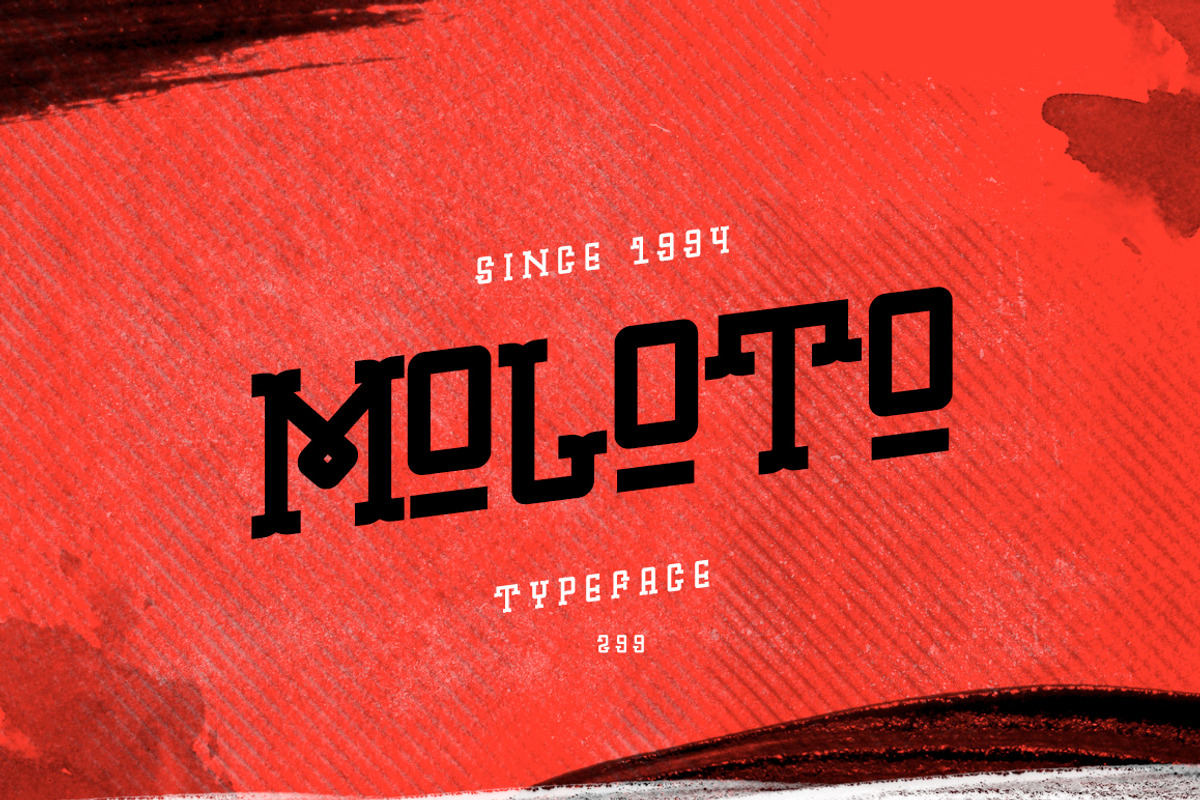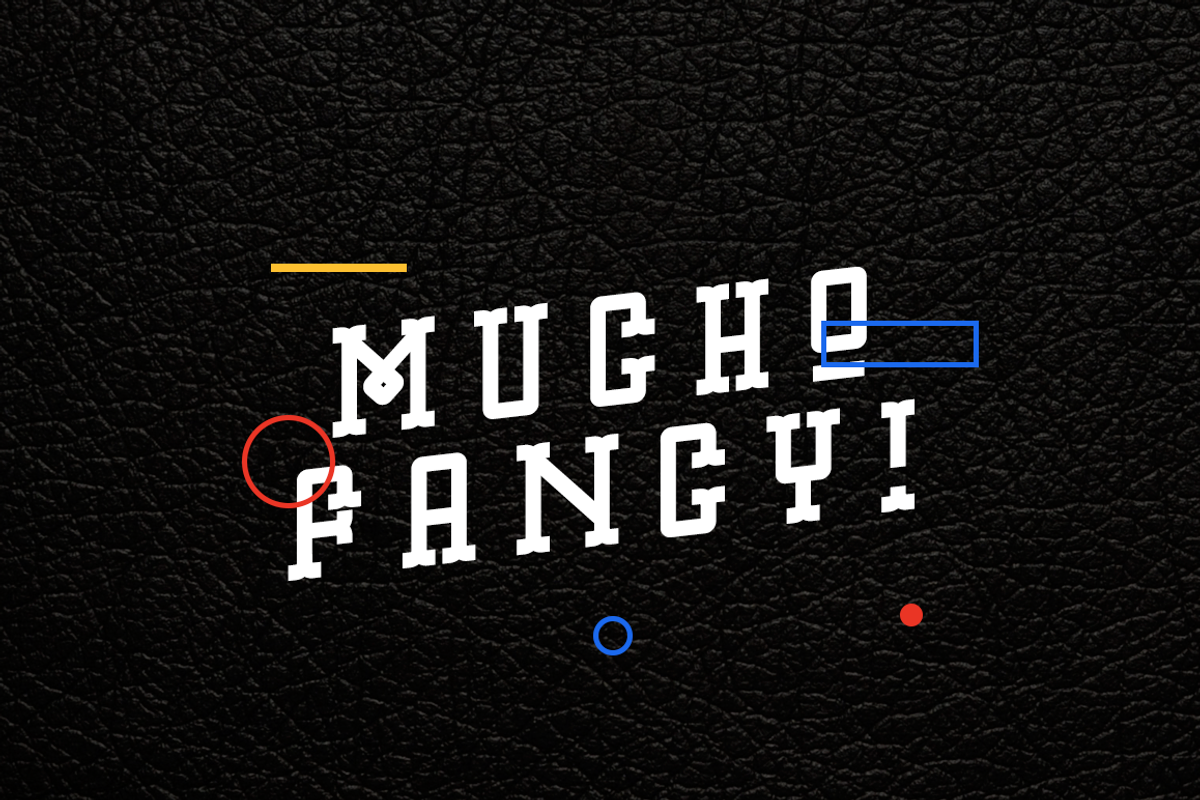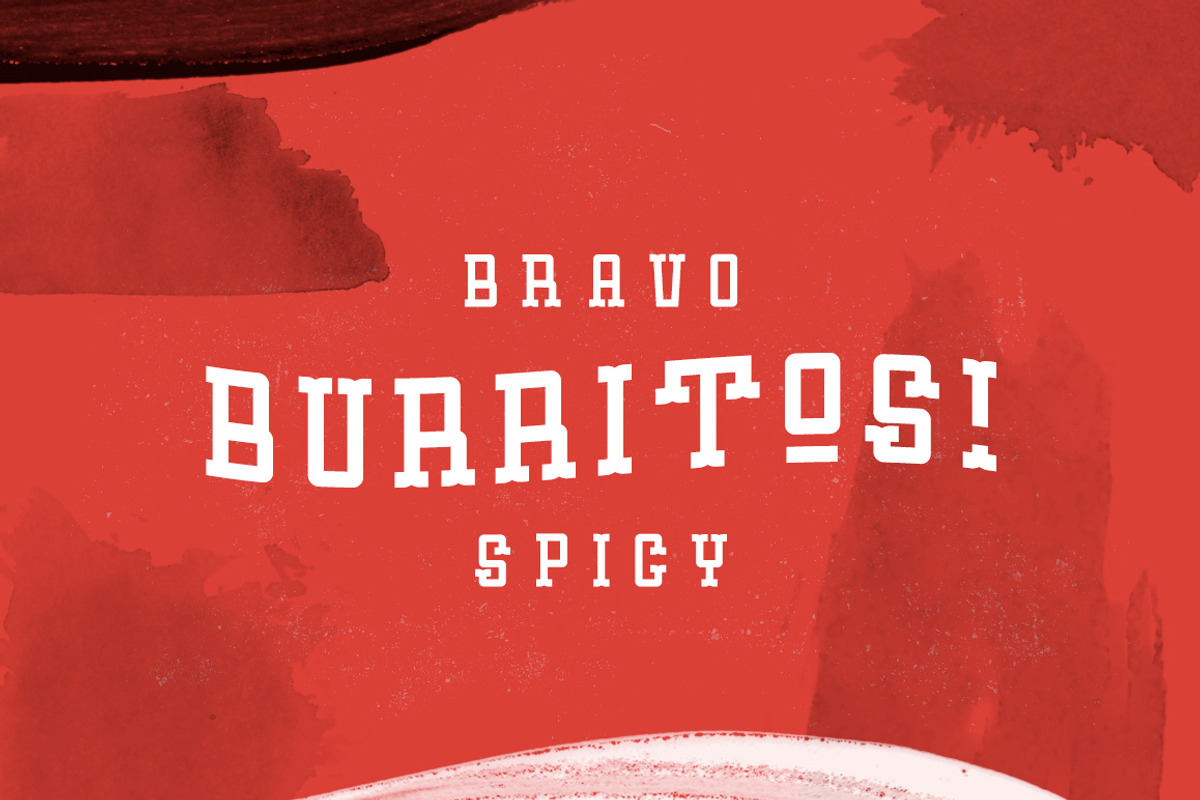
Moloto Font
Introducing Moloto Font, a typeface inspired in the mexican culture.
Thys typeface ins perfect for restaurants, babershops and clothes brands.